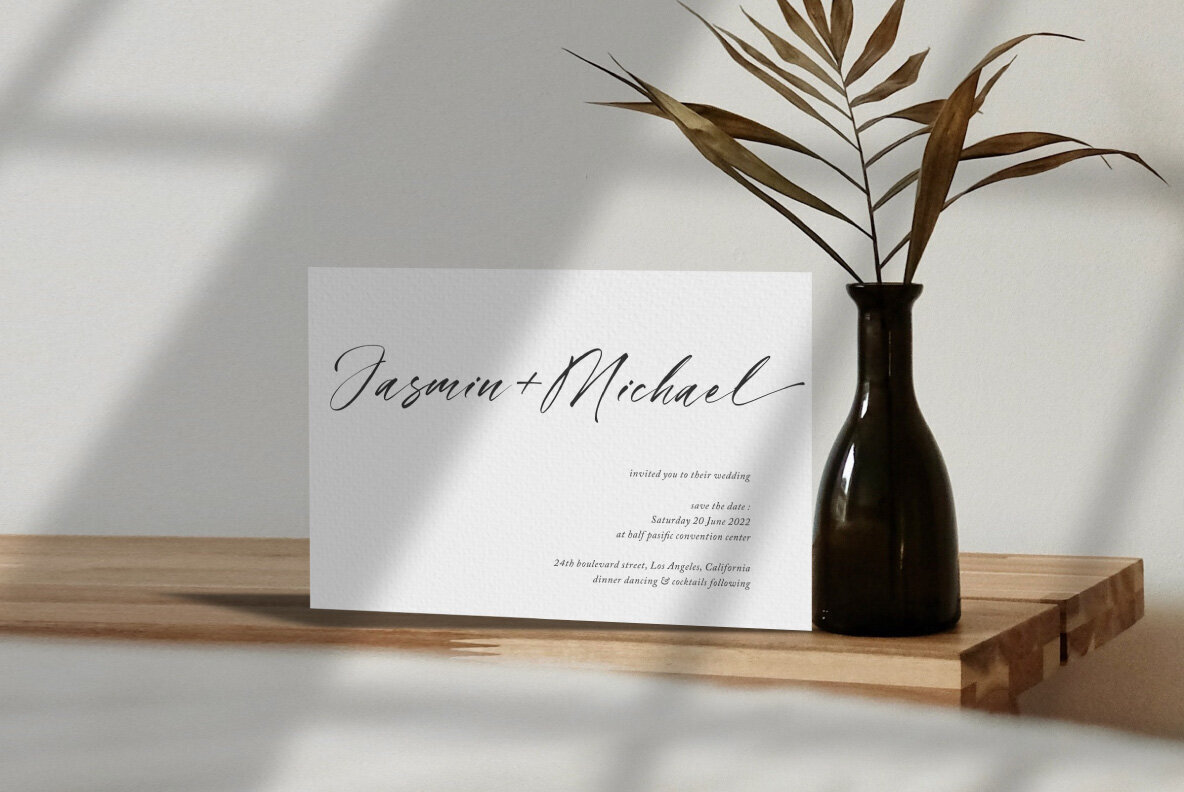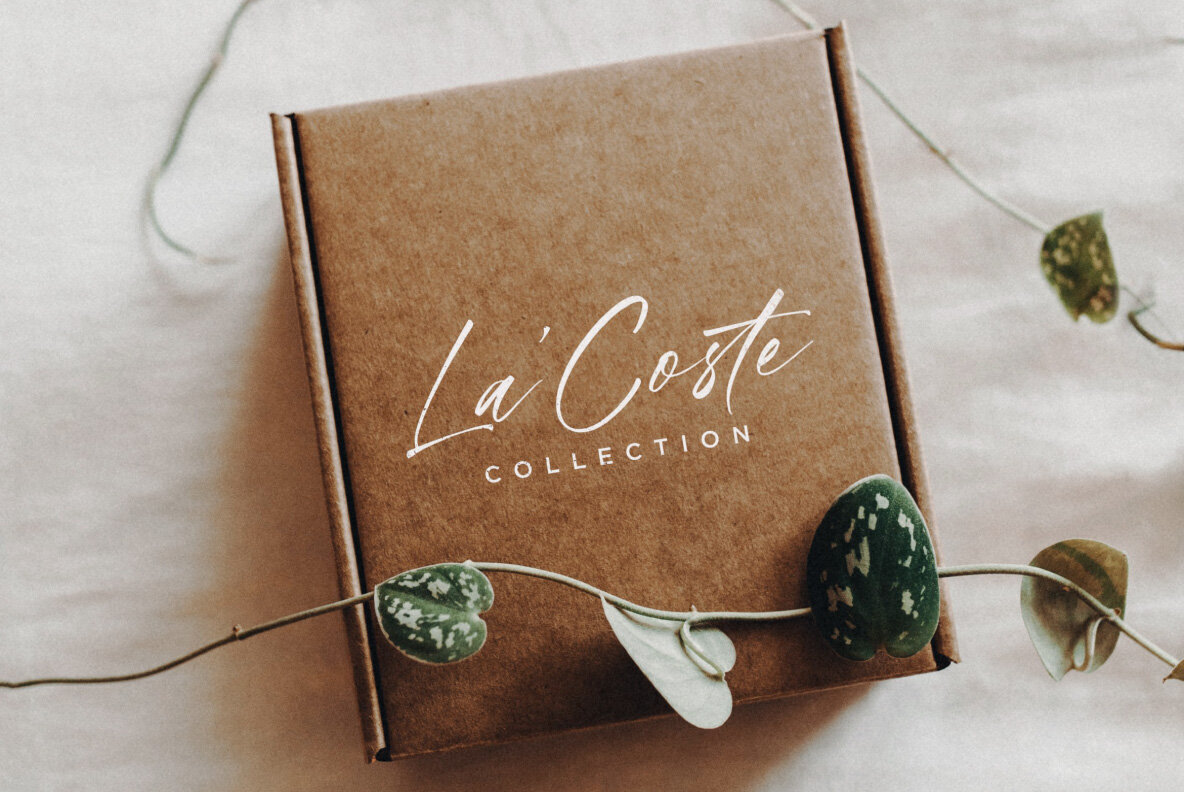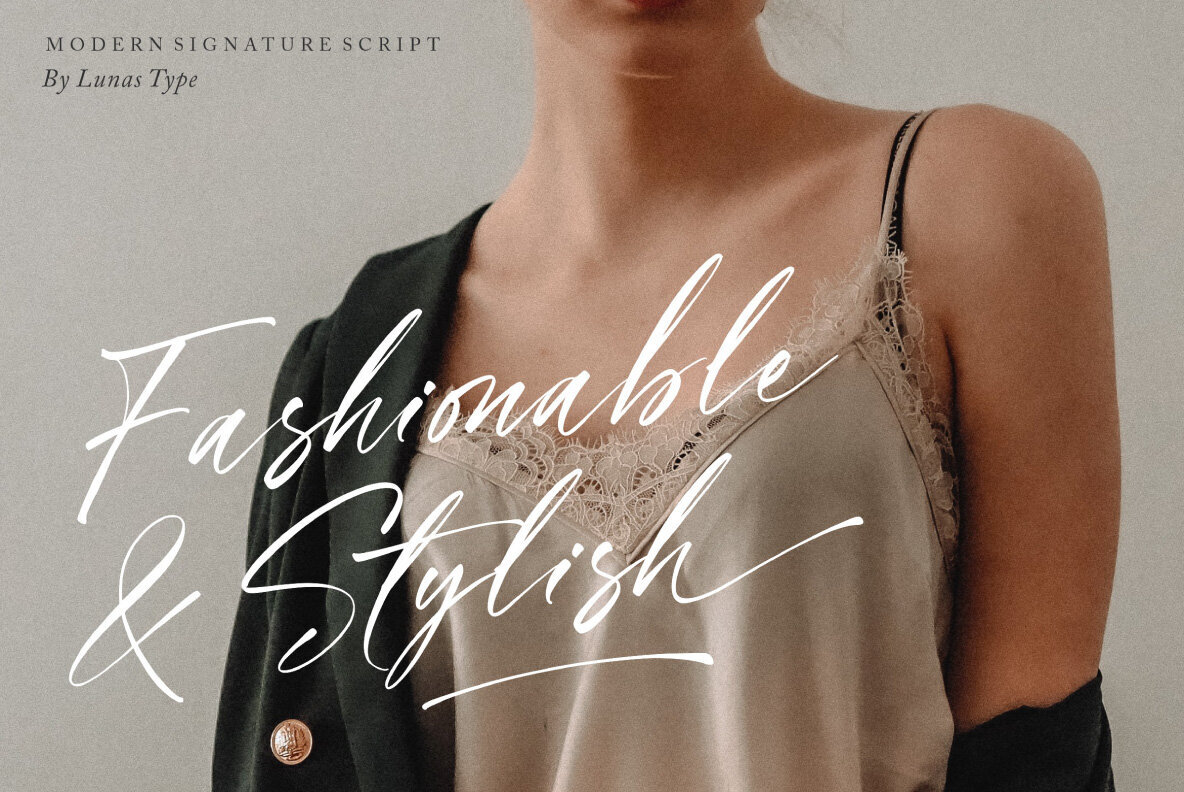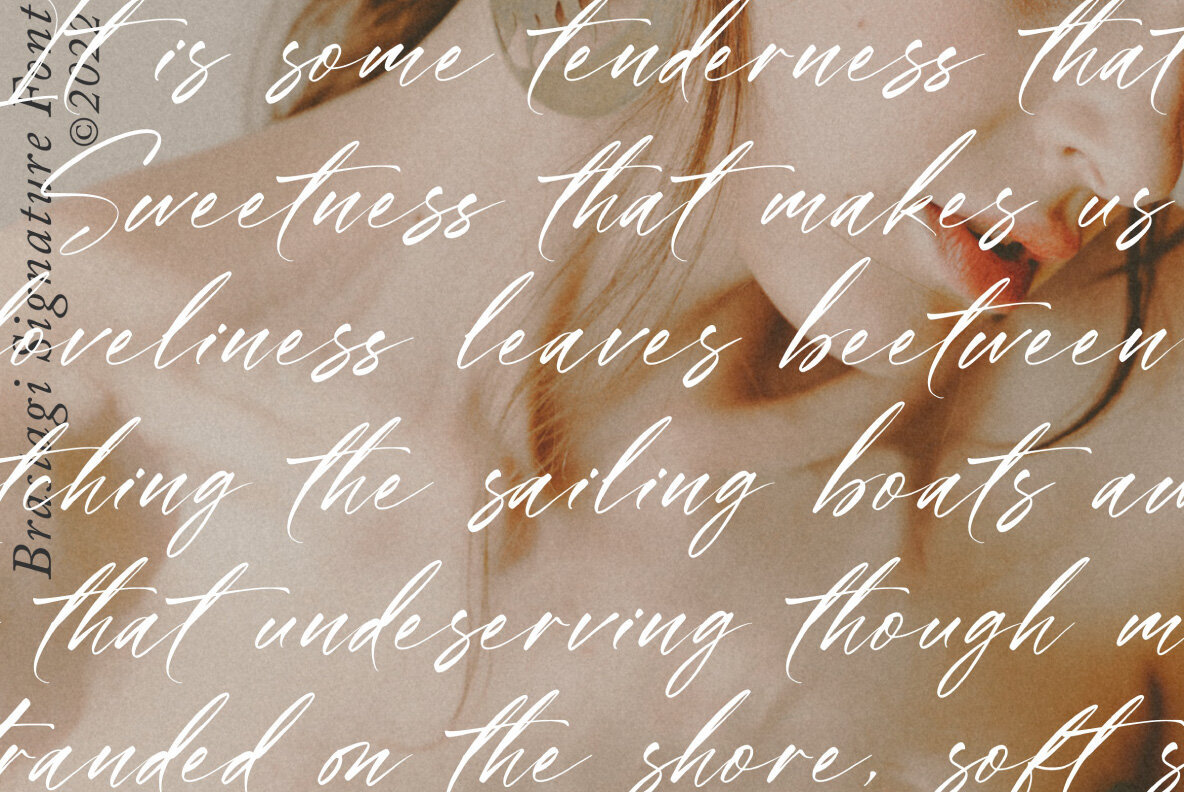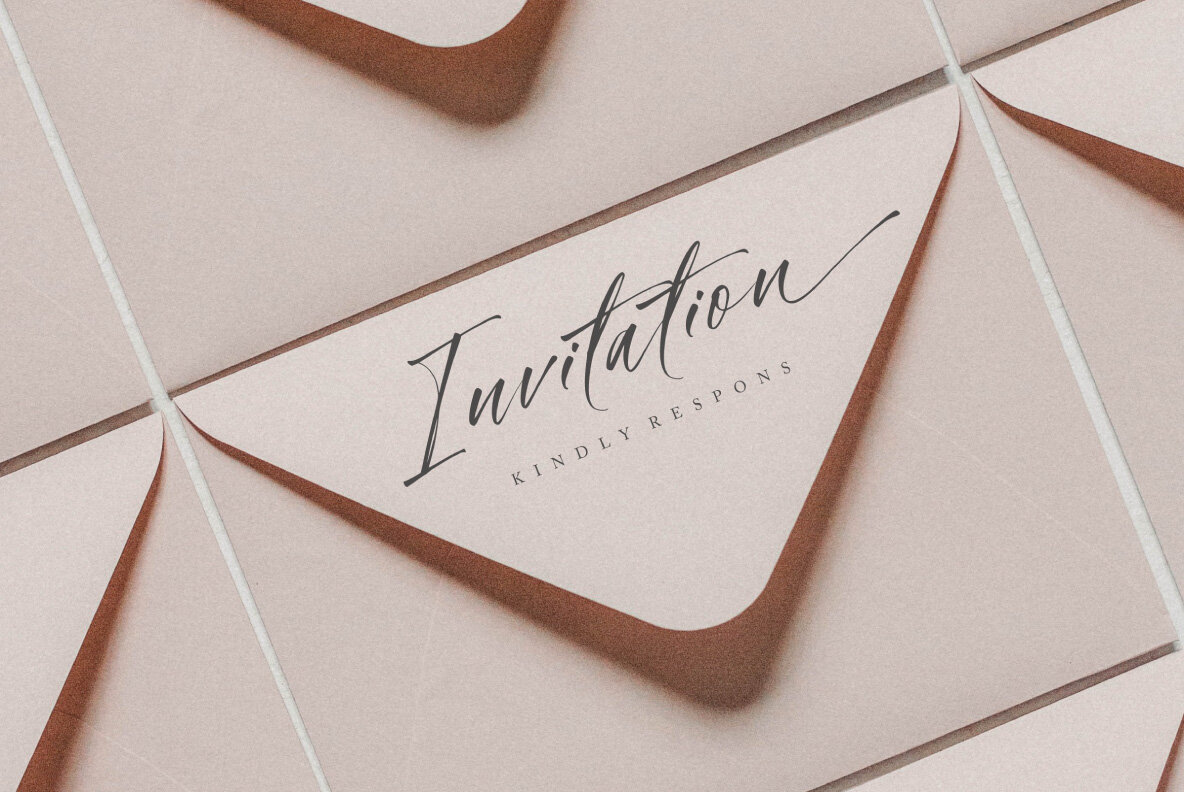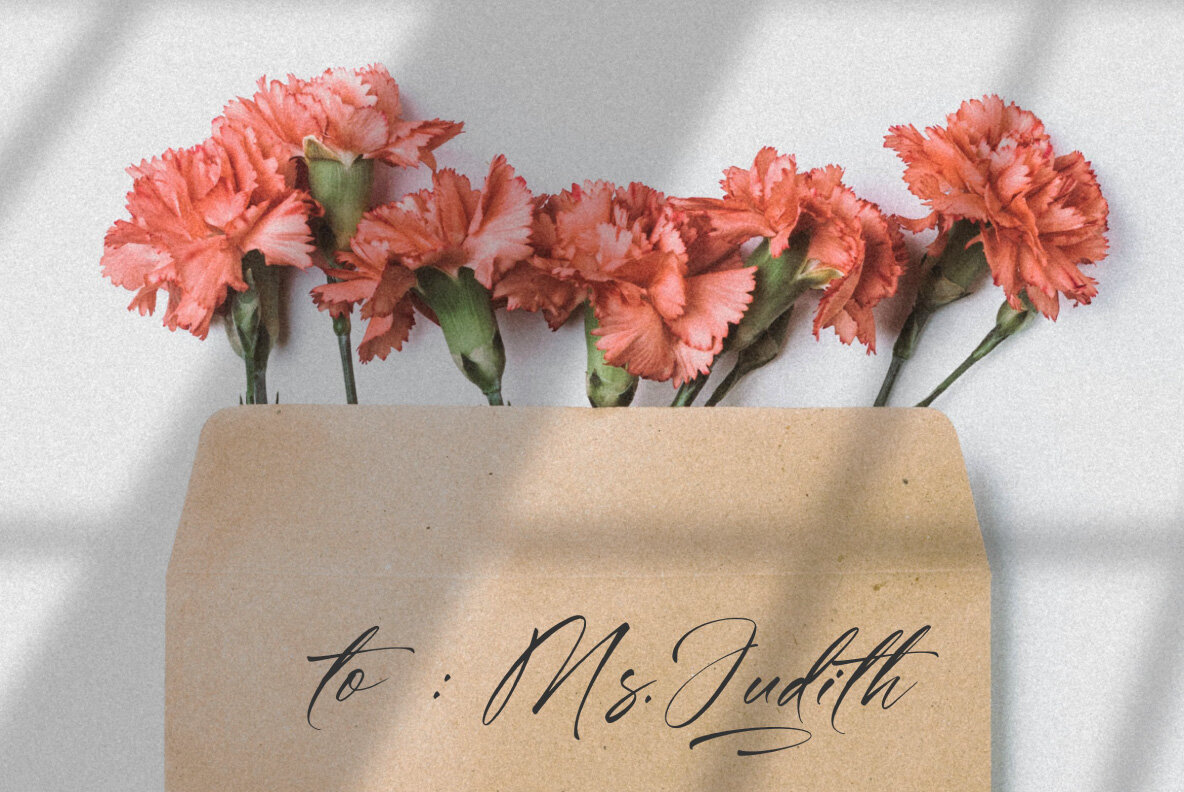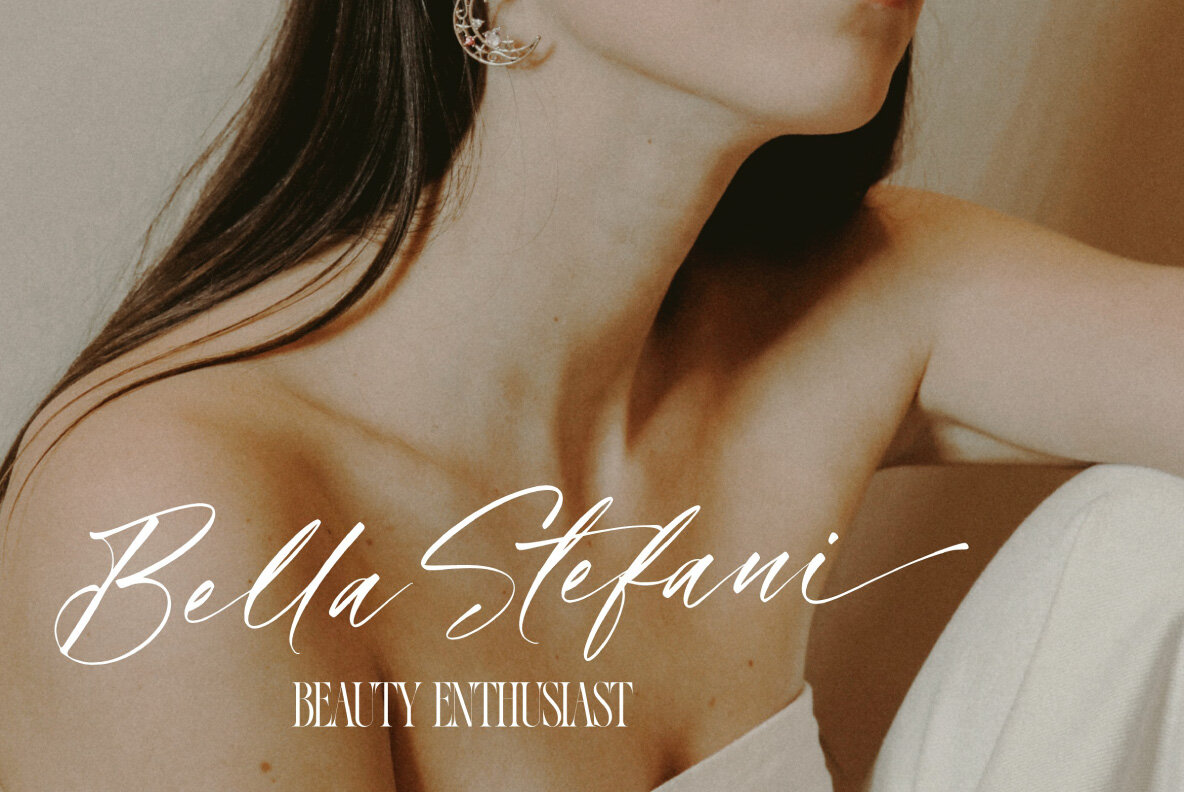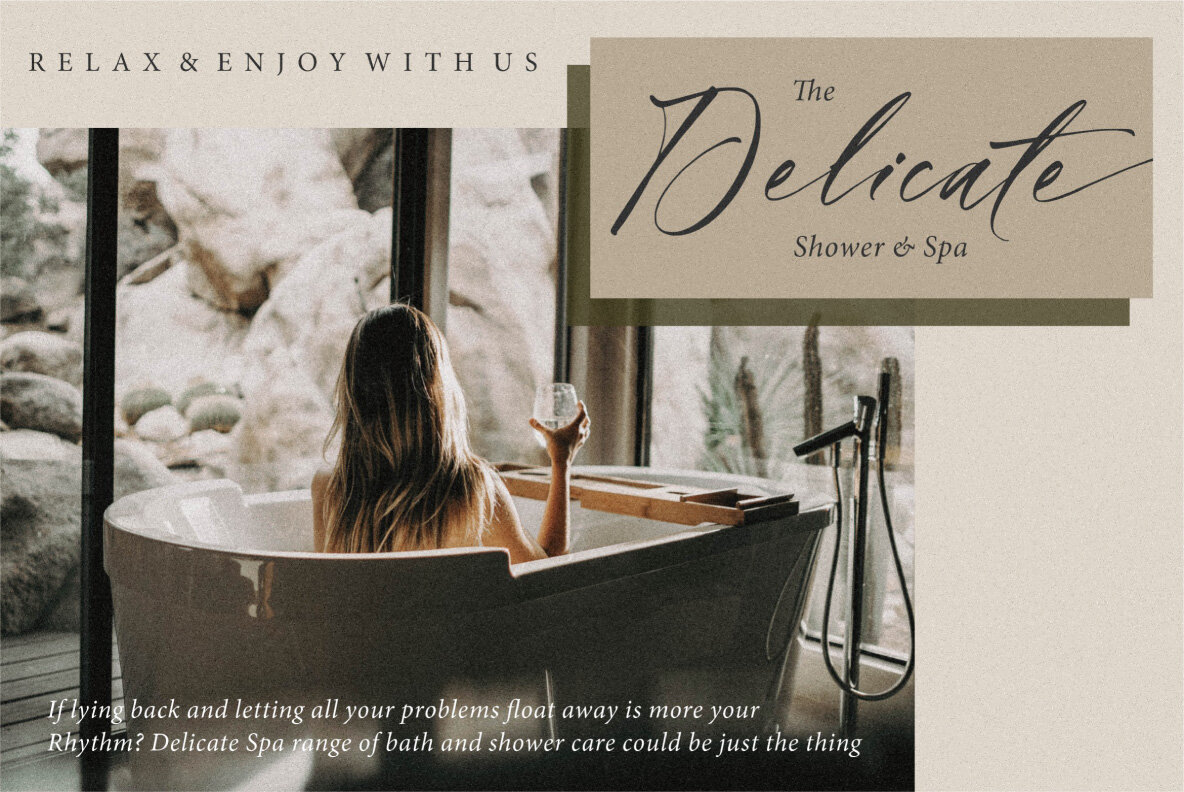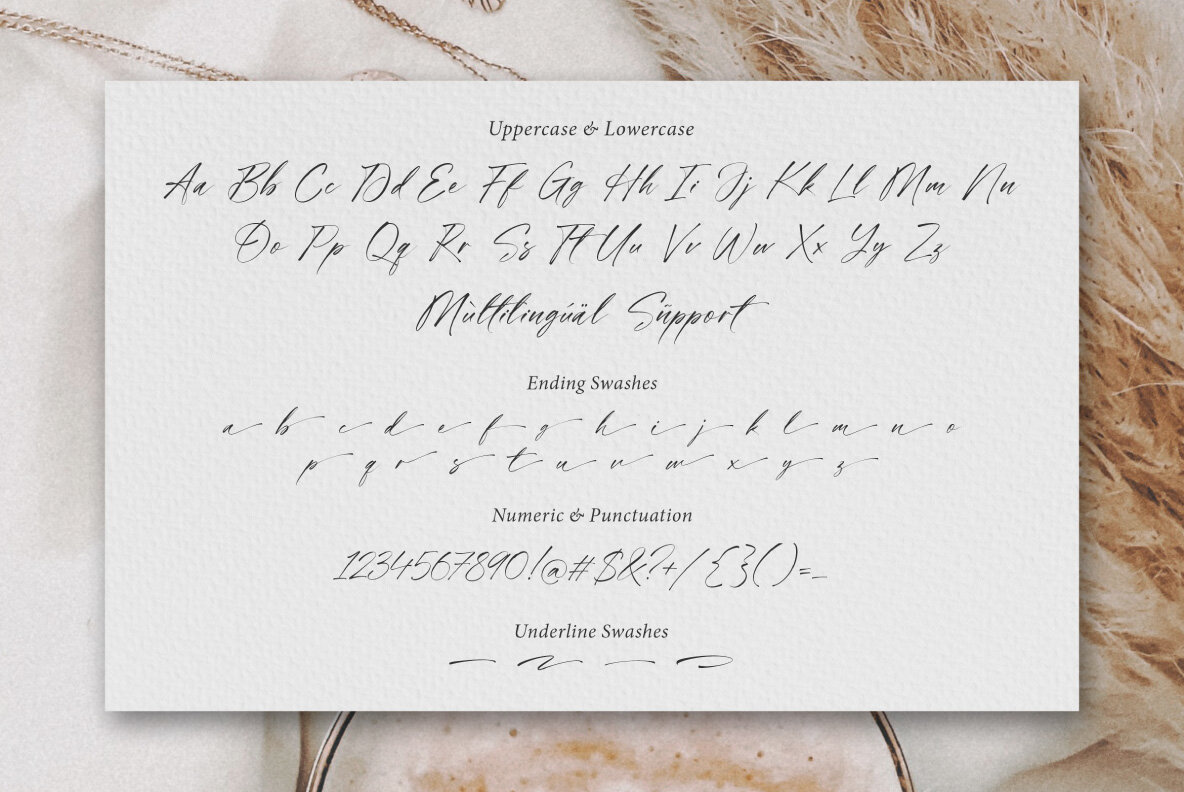
Brastagi Font
Brastagi Regular
Discover the distinctive allure of Brastagi, a handwriting and signature font designed to infuse your projects with grace and individuality. This font captures the essence of natural ink flow and modern handwriting ligatures. Each letter is intentionally crafted with imperfections, enhancing its authenticity and charm while meeting a range of design needs. Whether you're working on merchandise, T-shirts, wedding invitations, book covers, or social media posts, Brastagi offers a versatile solution. The font seamlessly adapts to websites and events, injecting a personal touch and aesthetic appeal.Brastagi: Natural Handwriting Charm
Embrace the uniqueness of Brastagi to elevate your creative endeavors with its natural handwriting flair.